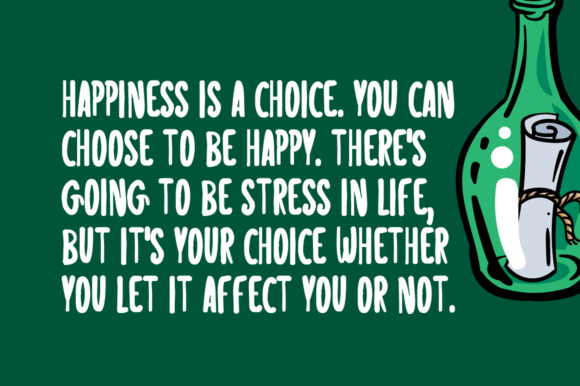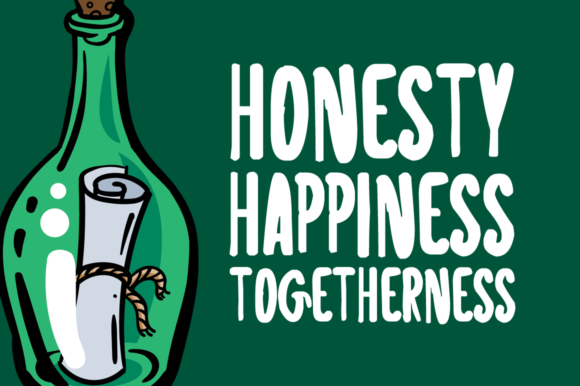
Carta Secreta Font: Unleash Your Creativity with this Whimsical Display Font
Are you tired of using the same old fonts for your designs? Look no further! Carta Secreta font is here to add a touch of magic to your creative projects. This fun and playful display font is perfect for designers, crafters, and anyone looking to add a dash of personality to their work.
The Charm of Carta Secreta
Carta Secreta is a bold and eye-catching font that exudes a whimsical charm. Its unique design makes it perfect for a variety of projects, from posters and flyers to social media graphics and invitations. The font’s playful feel is sure to capture the attention of your audience and leave a lasting impression.
Key Features of Carta Secreta Font
• Bold and Playful Design: Carta Secreta font has a bold and playful design that is sure to make your projects stand out.
• Whimsical Charm: The font’s whimsical charm adds a touch of personality to your designs, making them more engaging and memorable.
• Display Font: Carta Secreta is a display font, making it perfect for headlines, titles, and other prominent text elements.
• Easy to Read: Despite its bold design, Carta Secreta font is easy to read, making it perfect for a variety of applications.
Uses of Carta Secreta Font
Carta Secreta font is versatile and can be used for a variety of projects, including:
• Posters and Flyers: Add a touch of magic to your posters and flyers with Carta Secreta font.
• Social Media Graphics: Use Carta Secreta font to create eye-catching social media graphics that are sure to grab attention.
• Invitations: Add a touch of whimsy to your invitations with Carta Secreta font.
• Logos and Branding: Use Carta Secreta font to create a unique and memorable logo or branding element.
Tips for Using Carta Secreta Font
Here are some tips for getting the most out of Carta Secreta font:
• Use it Boldly: Carta Secreta font is designed to be used boldly, so don’t be afraid to experiment with different sizes and colors.
• Pair it with Other Fonts: Carta Secreta font pairs well with other fonts, so try combining it with a sans-serif font for a contrasting look.
• Experiment with Colors: Carta Secreta font looks great in a variety of colors, so don’t be afraid to experiment and find the perfect hue for your project.
Carta Secreta font is a fun and playful display font that is sure to add a touch of magic to your creative projects. Its bold and whimsical design makes it perfect for a variety of applications, from posters and flyers to social media graphics and invitations. With its ease of use and versatility, Carta Secreta font is a must-have for designers, crafters, and anyone looking to add a dash of personality to their work.
Get Inspired by Carta Secreta Font
So why wait? Get inspired by Carta Secreta font and unleash your creativity today! With its bold feel and whimsical charm, Carta Secreta font is sure to take your designs to the next level.